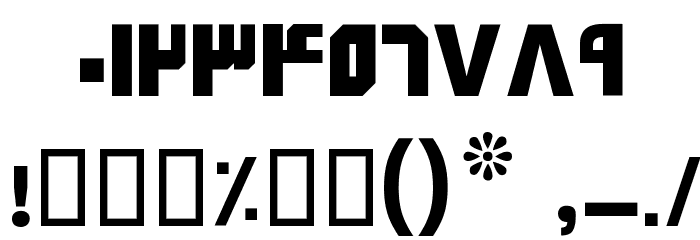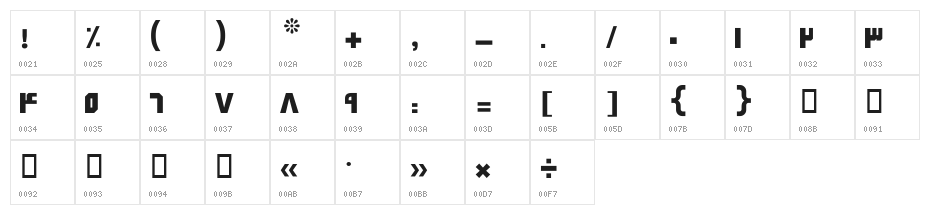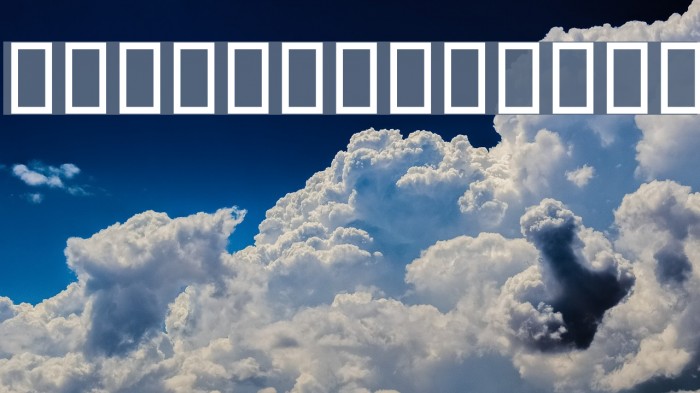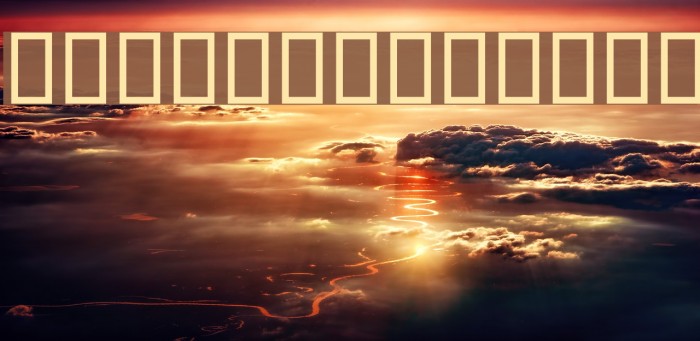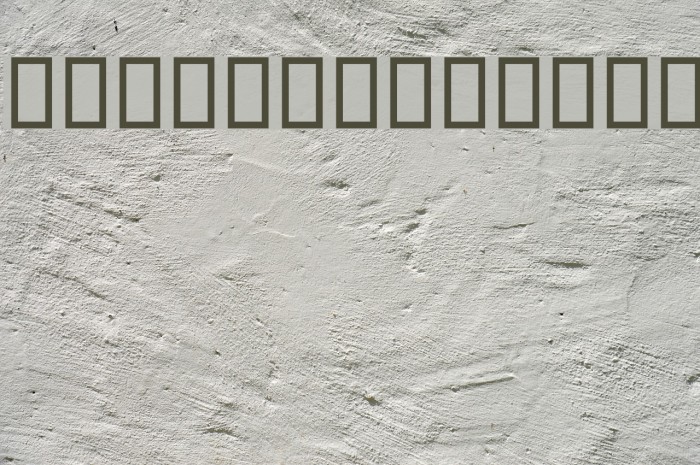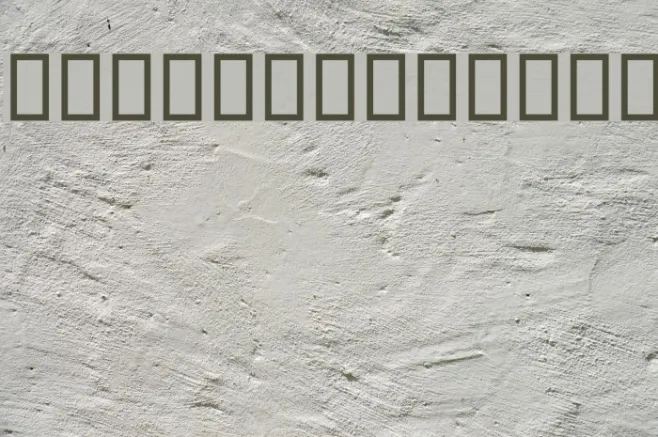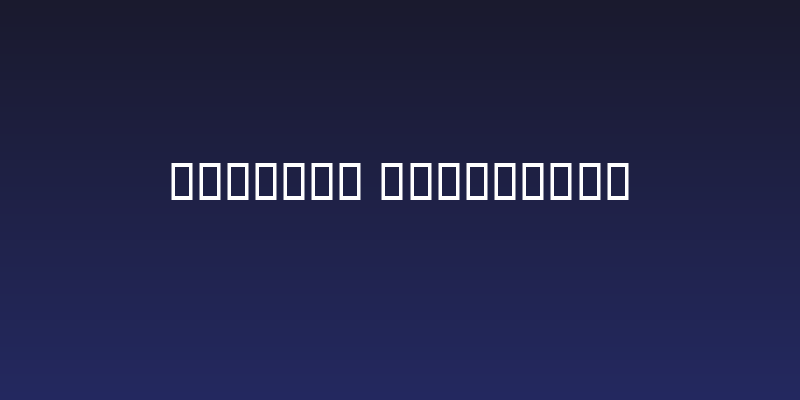
Soltaan Rectangle Font
Soltaan Rectangle Description
This font features a bold and geometric design, characterized by its strong, rectangular shapes and thick lines. The characters are uniform in width, giving it a monospaced appearance, which contributes to its modern and structured look. The font's high contrast between the thick strokes and the negative space creates a striking visual impact. Its blocky and angular style makes it ideal for attention-grabbing headlines or titles. The overall design is clean and minimalistic, with a futuristic touch that can be appealing for tech-related projects.
| Proposed Projects | Ideal for technology branding, futuristic posters, and digital interfaces. |